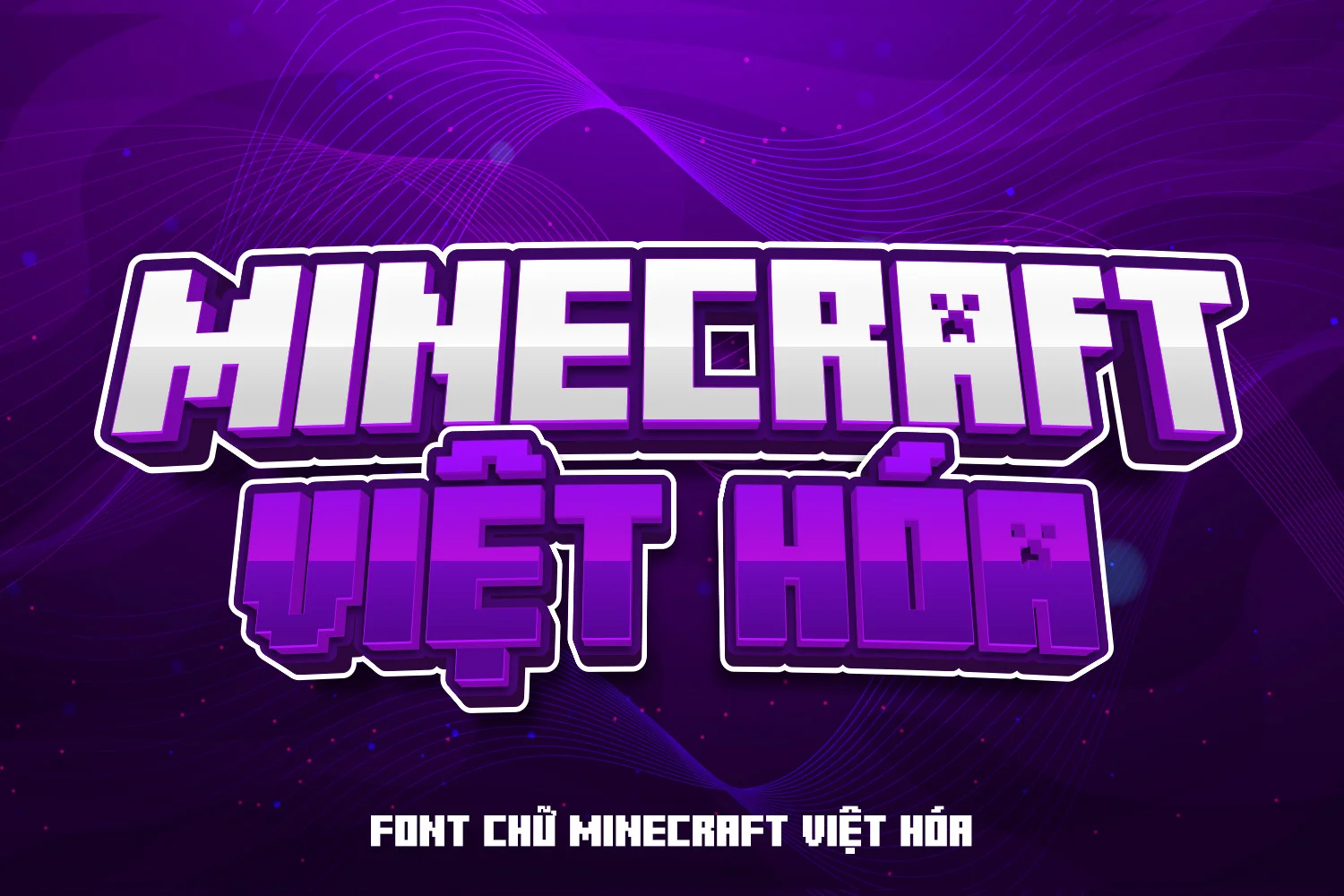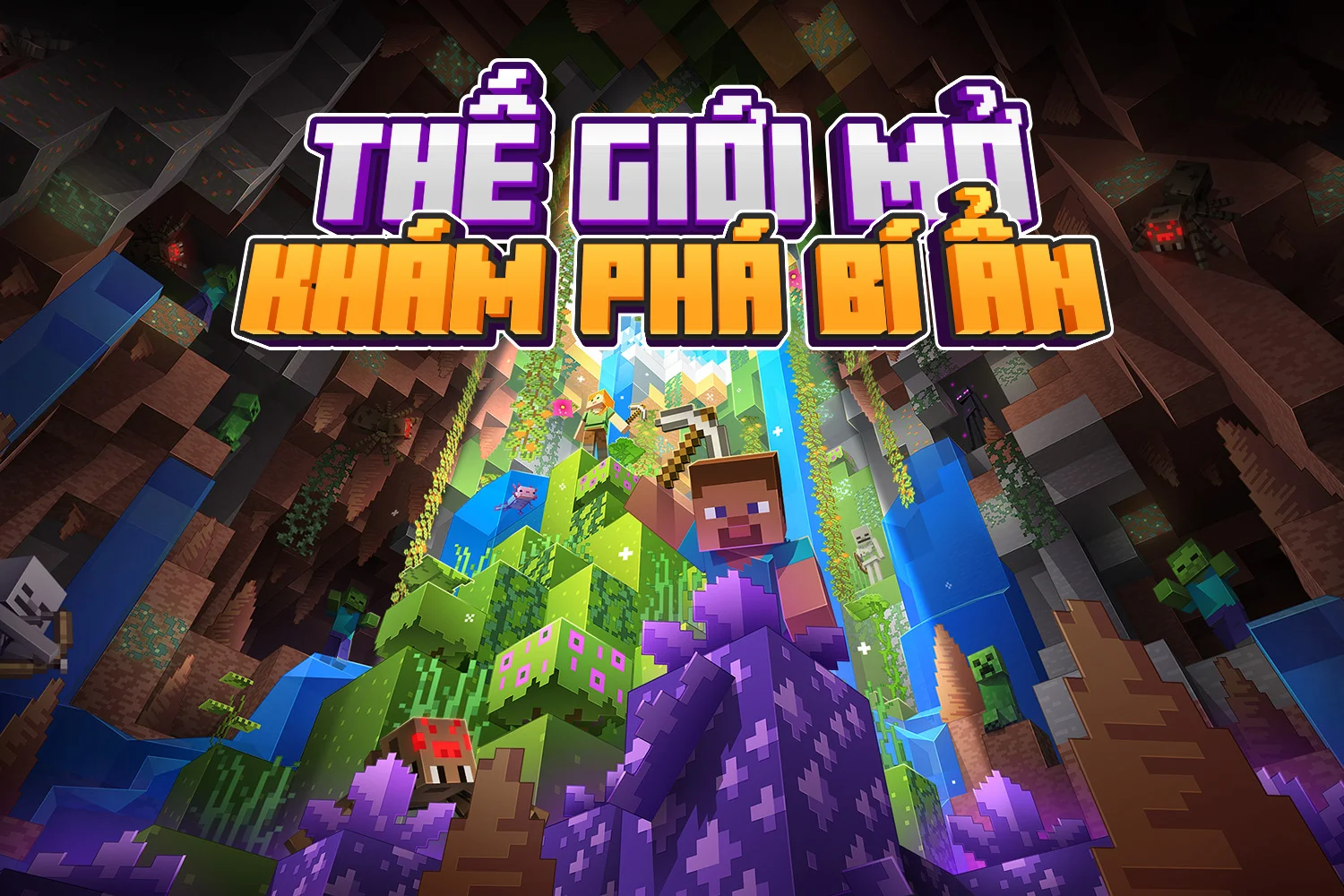
Minecraft Font Vietnamese – Supports Writing with Diacritics
Minecraft Font Vietnamese is a 3D Minecraft font pack (Minecraft Ten) that supports Vietnamese characters with diacritics. It helps Vietnamese gamers create more visually appealing banners.